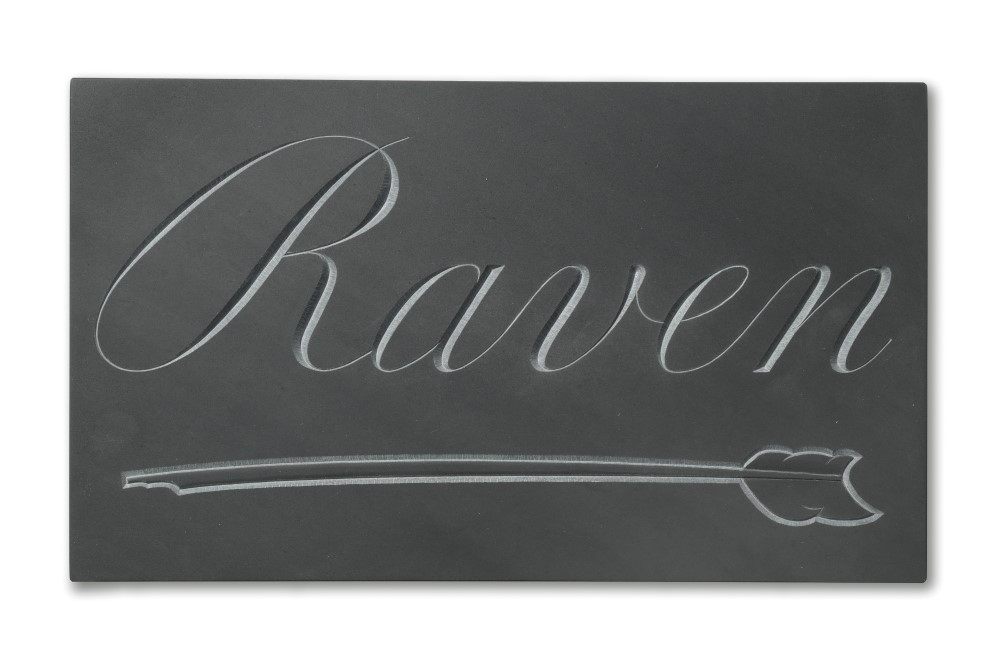
Raven by Andrew Whittle
This carving in Welsh Slate by Andrew Whittle, celebrates the word ‘Raven’, and was created as part of our exhibition ‘The Lost Words - Forget-me-not.’ For this exhibition artists have created a permanent record of the natural words removed from the Oxford Junior Dictionary. Size: 18 x 31cm
NOUN: RAVEN
A large heavily built crow with mainly black plumage, feeding chiefly on carrion. Genus Corvus, family Corvidae: several species, in particular the widespread all-black common raven (C. corax)
ORIGIN: Old English hræfn, of Germanic Origin; related to Dutch raaf and German Rabe.
The word RAVEN has become superfluous for children in our increasingly – and sadly to my mind –urbanised society.
Raven quills were used for fine writing before the steel nib was popularized – some changes are an improvement, some are not. The advent of the computer keyboard has side-lined the tuition of writing by hand in schools. Only now is it becoming clear that the motor skills gained in hours of practice were an essential part of the training for other fine hand-work, such as surgery and craft-work.
I have in my possession a fine set of copy-books dating from 1869 by a Master Poole of Bristol –aged thirteen years. They are beautifully written in a roundhand style with a steel nib. I felt that this exhibition offered a perfect opportunity to work these letterforms up for carving. Perhaps ironically I have chosen to draw them with the aid of a computer. The hand-skills required to do this well may be less than those employed with a pen or pencil, but the computer allows for minute and exact adjustments. The final drawing on the stone is always by pencil and the final drawing tool, for me, is the chisel.